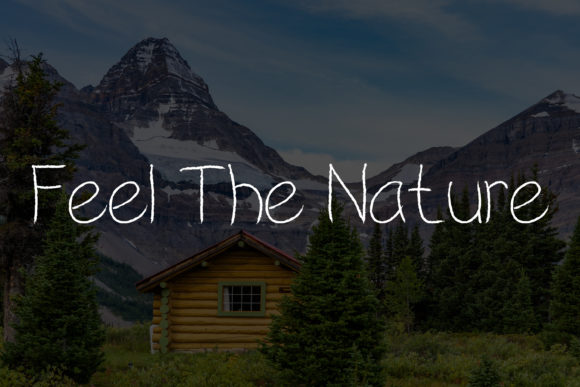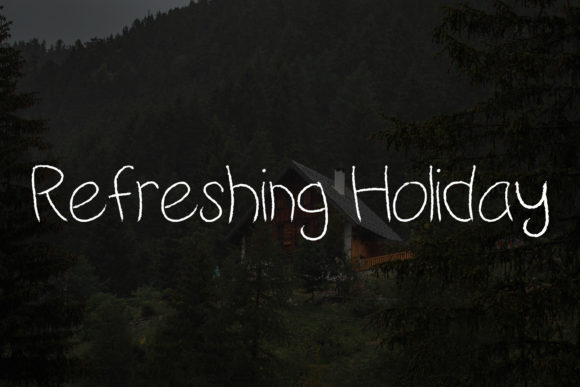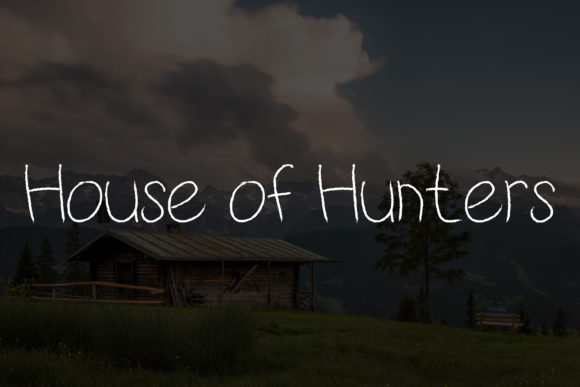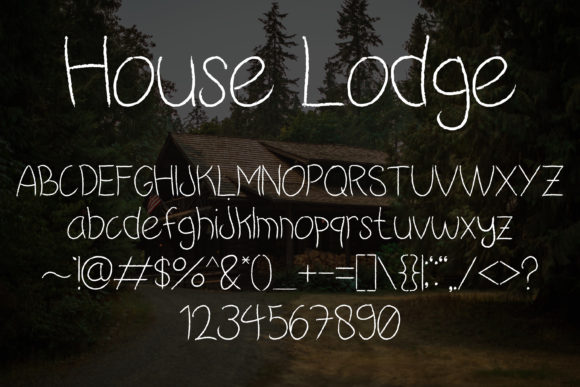
Introduction to House Lodge Font
Have you ever stood in front of a vintage chalkboard, mesmerized by the way handwritten quotes seem to jump off the page? That’s the magic of a well-designed handwritten font, and the House Lodge Font is one that will transport you back to those carefree days of chalkboard learning.
As a designer, you’re always on the lookout for the perfect design resource to elevate your creative project. And when it comes to teaching materials or chalkboard quotes, the House Lodge Font is a game-changer. Its authentic look and feel will add a personal and realistic touch to your designs, making them stand out from the crowd.
Key Features of House Lodge Font
- High-quality design resource for creative projects, ideal for use in graphic design, web design, and publishing.
- Features a transparent background, allowing for seamless integration into various design elements and backgrounds.
- Includes a range of characters, including uppercase and lowercase letters, numbers, and punctuation marks, making it suitable for a variety of creative projects.
- Designed with a high resolution, ensuring crisp and clear typography even at large font sizes.
- Perfect for use in logo design, branding, and other creative projects where a unique and stylish font is required.
Honest Review: House Lodge Font
I recently stumbled upon the House Lodge Font, and I must say it’s been a game-changer for my creative projects. As a designer, I’m always on the lookout for high-quality design resources that can elevate my work.
One of the standout features of this font is its transparent background, which makes it incredibly versatile. I’ve used it for everything from logos to social media graphics, and it’s always a crowd-pleaser.
- ✨ High-quality design: The font is crisp and clean, with a professional feel that’s perfect for any creative project.
- ✨ Easy to use: The font is incredibly easy to use, with a simple and intuitive design that makes it a breeze to work with.
- ⚠️ Limited customization options: While the font is great out of the box, I found that there aren’t many customization options available.
- ⚠️ Not suitable for all projects: While the font is perfect for many creative projects, it may not be the best choice for more formal or corporate projects.
Overall, I’m thoroughly impressed with the House Lodge Font. It’s a fantastic design resource that’s perfect for designers looking for a high-quality, free font. I’ve already incorporated it into several of my projects, and I’m sure I’ll be using it for many more to come.
To get the most out of House Lodge Font, use it in conjunction with other design elements, such as images and graphics. You can also experiment with different font sizes and colors to create a unique and creative look.
House Lodge Font is commonly used for creative projects, such as branding, marketing materials, and web design. It’s also a great choice for presentations, reports, and other documents where a high-quality font is required.